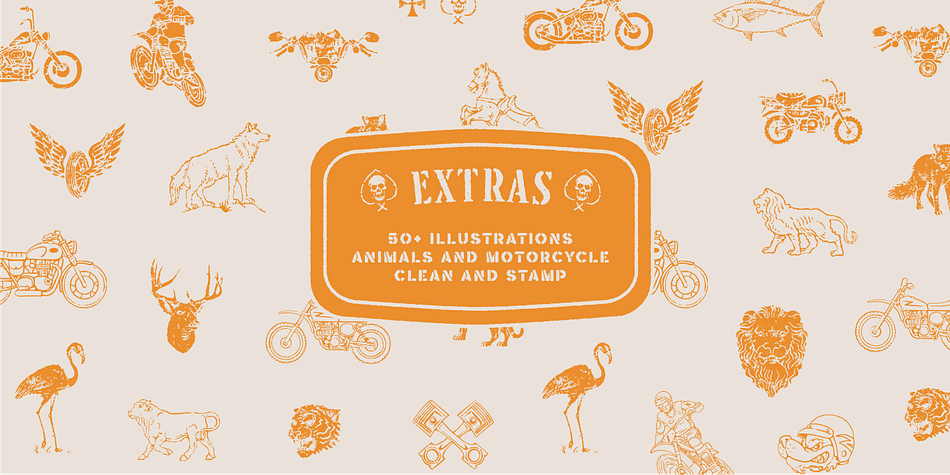
Brocades
Designed by Edi Gunawan, Brocades is a multiple classification font family. This typeface has fourteen styles and was published by Edignwn Type.
The font collection is called “Brocades”, it is a crafted display with vintage themes. These collections contain monoline script, sans serif stencil and serif stencil. Every font comes with 4 style typefaces (regular, rounded, rough and stamp). Brocades give more extras 2 pack illustrations (animals and motorcycle). This script font includes 3 sets alternates and swashes. The Brocades matches apply in some designs such as the logotype, poster, label, badge, packaging, apparel, branding, and more custom design.
Brocades features :
- 4 style typefaces (regular, rounded, rough and stamp)
- Uppercase, lowercase, numeral, symbol, punctuation, alternate and swash in monoline script
- All-caps, numeral, symbol and punctuation in sans serif and serif font
- Multilingual
Brocades includes :
- 14 fonts (script, sans serif, serif and dingbat)
- 52 illustrations in dingbat
Styles Sans Serif, Script, Stencil, Dingbat
Designer Edi Gunawan